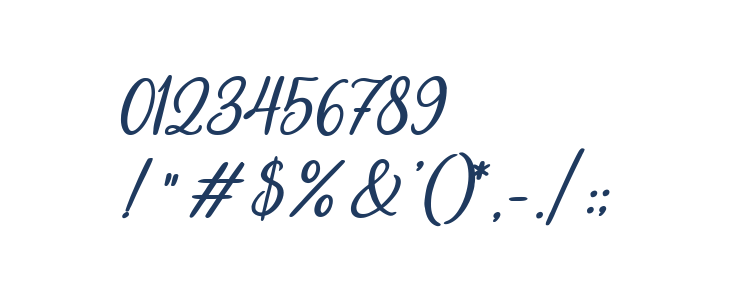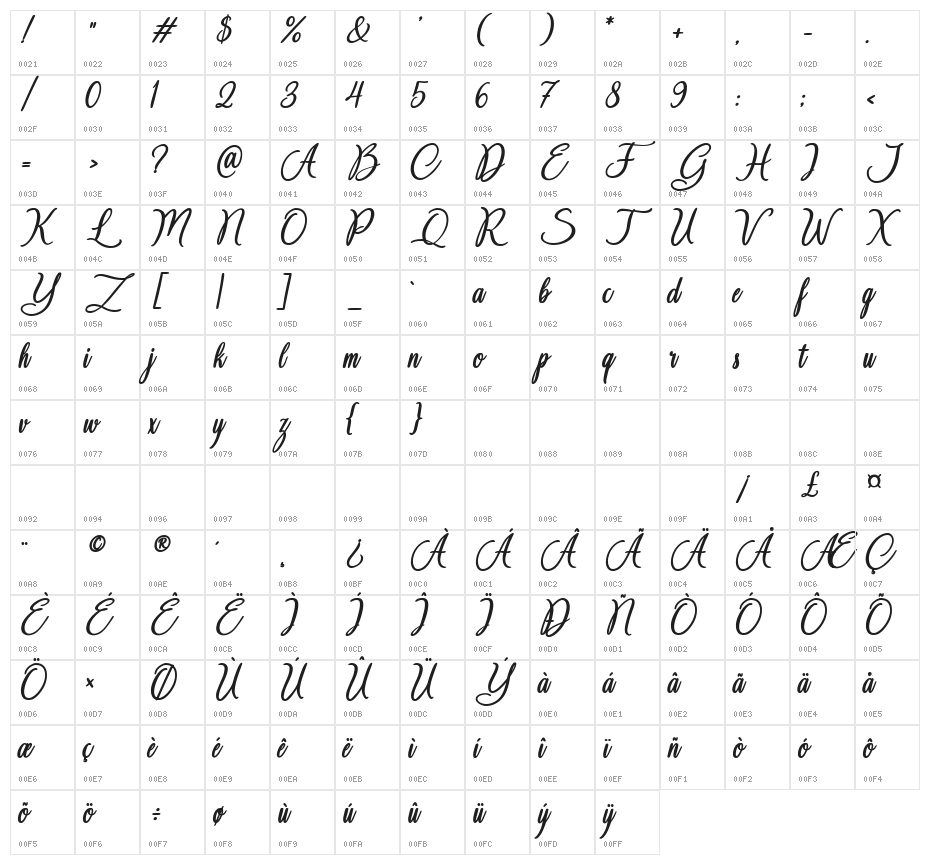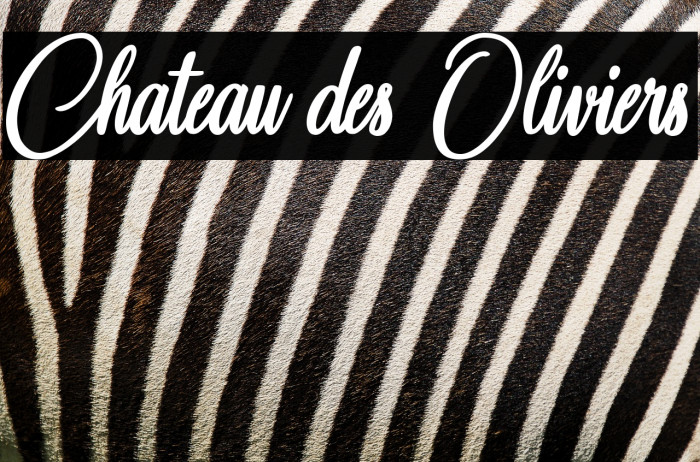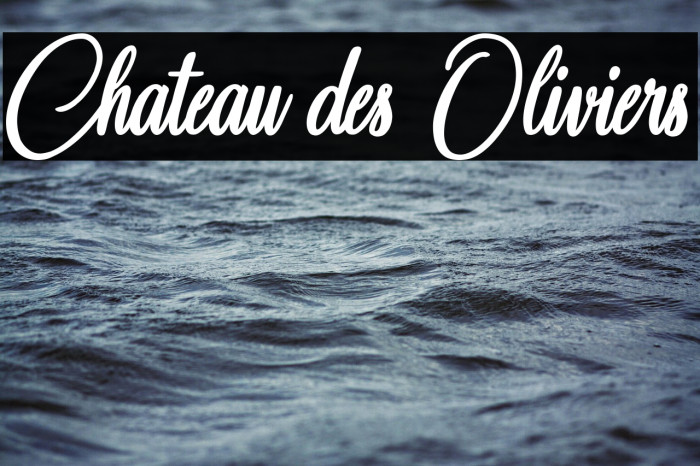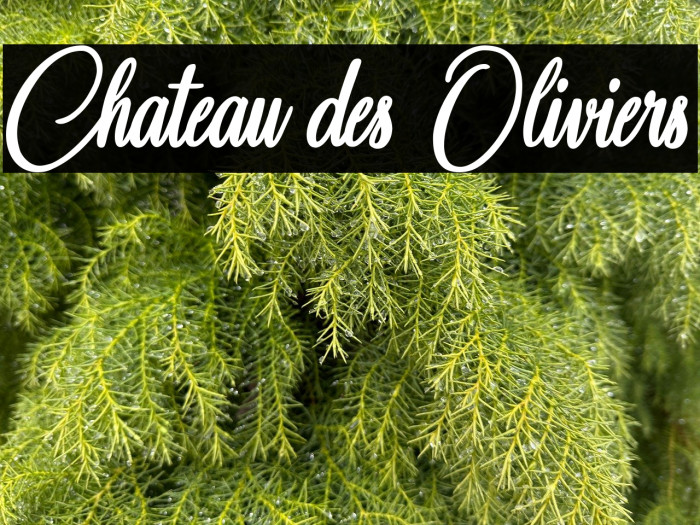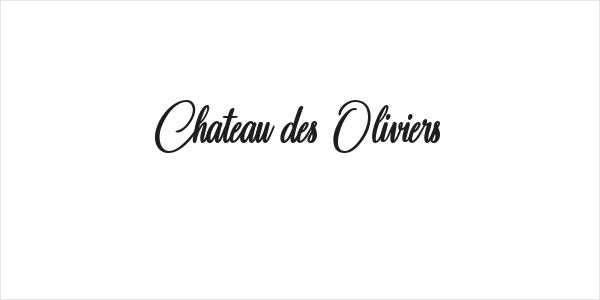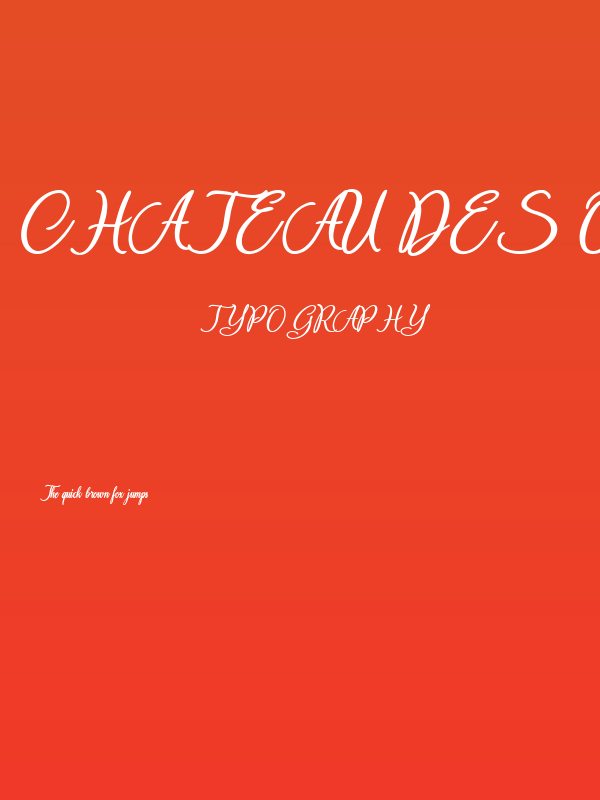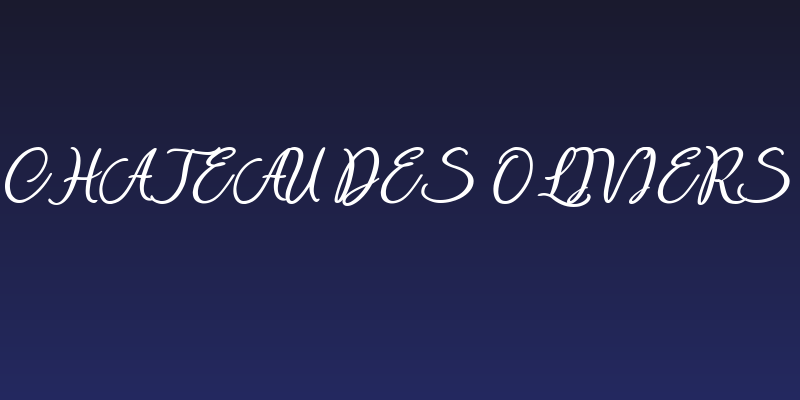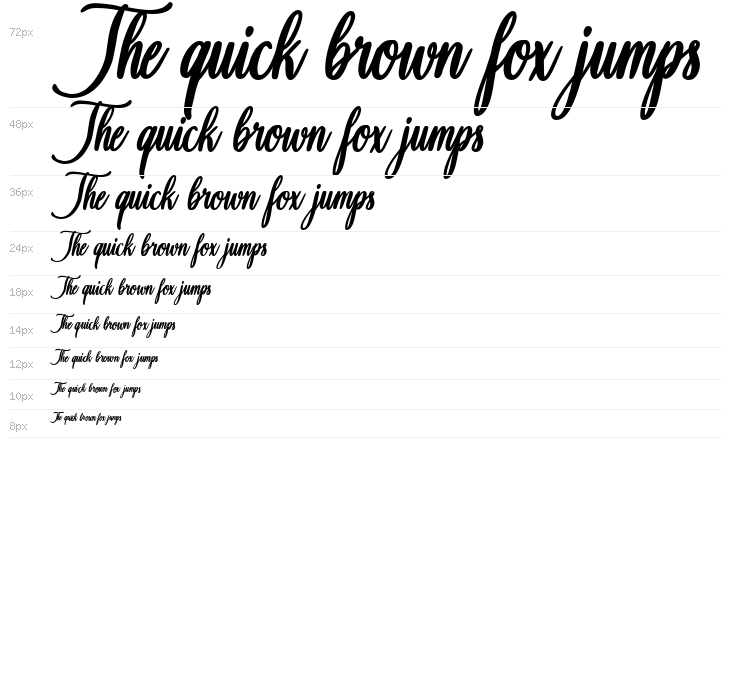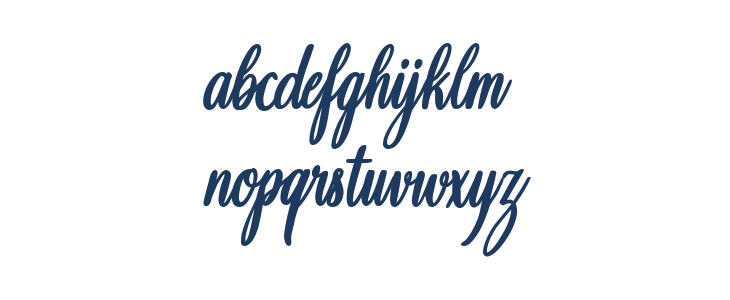
Chateau des Oliviers Font
Chateau des Oliviers Description
This elegant script font features a flowing, cursive style with smooth, connected strokes that give it a sophisticated and graceful appearance. The uppercase letters are slightly more ornate, with delicate flourishes that add a touch of formality. The lowercase letters maintain a consistent flow, enhancing readability while preserving the font's decorative nature. The numerals are styled to match the overall script aesthetic, offering a cohesive look across all characters. Special characters are designed with similar attention to detail, ensuring they blend seamlessly with the rest of the font.
| Overall Style | Elegant, Decorative |
| Use Case | Logos, Invitations, Decorative Text |
| Proposed Projects | Ideal for wedding invitations, elegant branding, greeting cards, and high-end product packaging. |